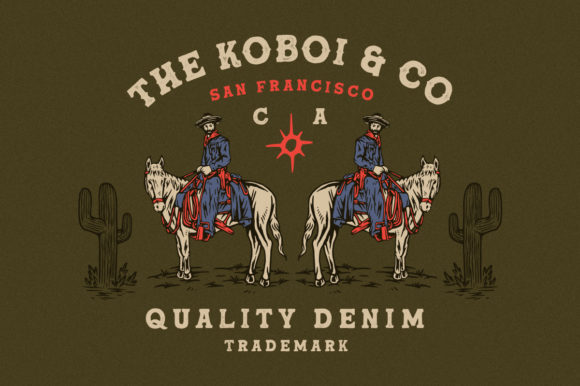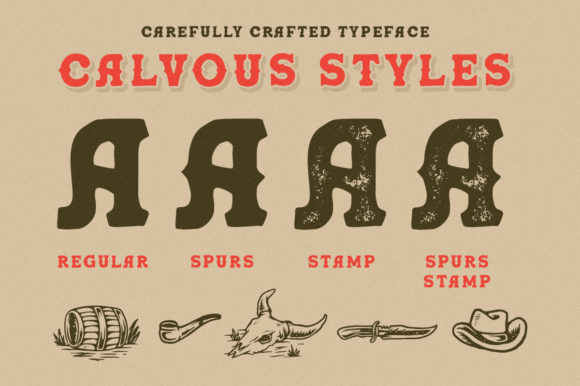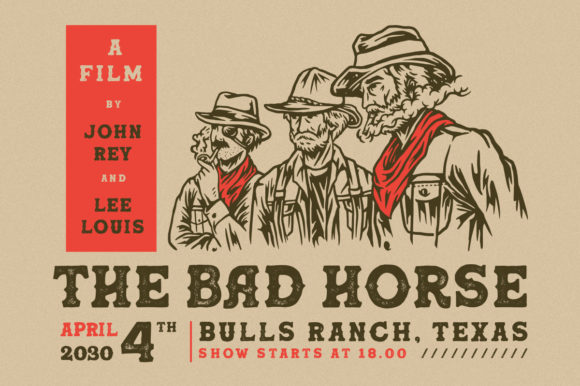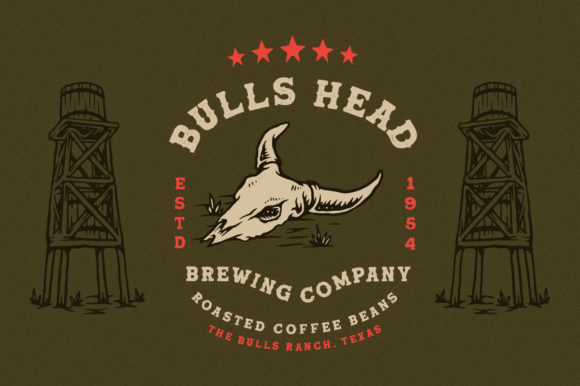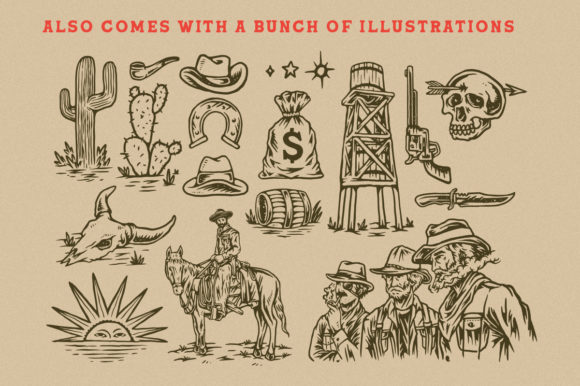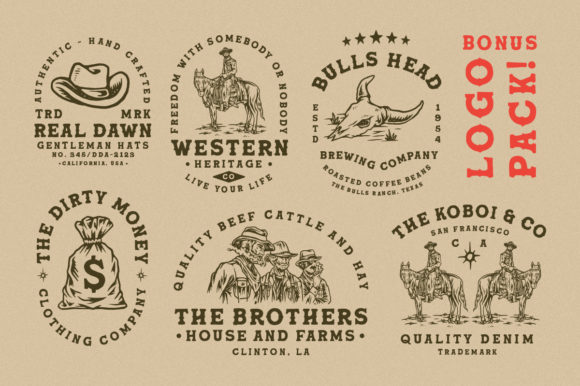
Introducing Calvous Font: Elevate Your Designs with a Touch of Classic Western Style
Are you a designer or crafter looking for a font that can add a unique touch to your next project? Look no further than Calvous Font. This versatile font family brings together four distinct styles, offering an extra level of flexibility to suit a wide range of design needs. With its raw serif elements, Calvous Font is perfectly suited for adding a touch of classic western style to your designs.
What is Calvous Font?
Calvous Font is a carefully crafted font family that comprises four fonts in distinct styles. This allows designers to experiment with different looks and feels, ensuring that their final product stands out from the crowd. Whether you’re working on a branding project, a packaging design, or a digital platform, Calvous Font provides the perfect blend of classic and modern elements.
The Characteristics of Calvous Font
So, what makes Calvous Font so special? Here are a few key characteristics that set it apart:
- Raw Serif Elements: Calvous Font features raw serif elements that give it a distinctly classic western feel. These elements add a touch of ruggedness and character to your designs, making them perfect for projects that require a bit of grit and personality.
- Versatility: With four distinct styles to choose from, Calvous Font offers an incredible level of versatility. Whether you’re designing a logo, a brochure, or a website, you can experiment with different font styles to find the perfect fit.
- Legibility: Despite its raw, classic look, Calvous Font remains highly legible, even at smaller sizes. This makes it perfect for body text, headings, and titles.
How to Use Calvous Font in Your Designs
Calvous Font is incredibly easy to use, even for designers who are new to working with font families. Here are a few tips to get you started:
- Pair it with Other Fonts: Experiment with pairing Calvous Font with other fonts to create a unique visual hierarchy. The raw serif elements of Calvous Font work particularly well with sans-serif fonts, creating a striking contrast that adds depth to your designs.
- Use it for Headings and Titles: Calvous Font is perfect for headings and titles, where its classic western style can really shine. Use it to add a touch of personality to your designs and make your text stand out.
- Experiment with Different Styles: Don’t be afraid to experiment with the different styles within the Calvous Font family. Mixing and matching different fonts can help you create a visually interesting design that’s full of character.
Who is Calvous Font Suitable For?
Calvous Font is perfect for a wide range of designers and crafters, including:
- Graphic Designers: Whether you’re working on a branding project, a packaging design, or a digital platform, Calvous Font provides the perfect blend of classic and modern elements.
- Web Designers: Calvous Font is highly legible on digital platforms, making it perfect for web designers who need a font that can perform well in a variety of contexts.
- Crafters and Makers: If you’re a crafter or maker looking for a font that can add a touch of personality to your products, Calvous Font is a great choice.
In conclusion, Calvous Font is a versatile and highly effective font family that can add a touch of classic western style to your designs. With its raw serif elements, four distinct styles, and high legibility, it’s perfect for a wide range of design needs. Whether you’re a graphic designer, web designer, or crafter, Calvous Font is definitely worth checking out.